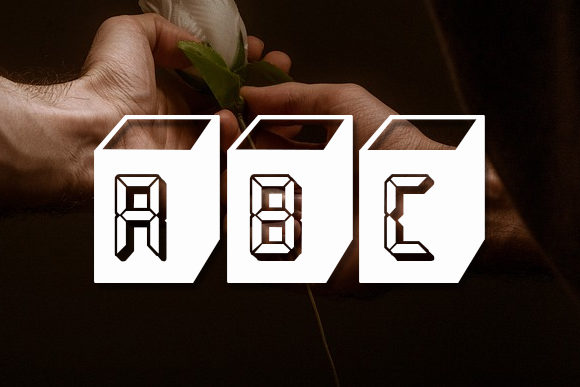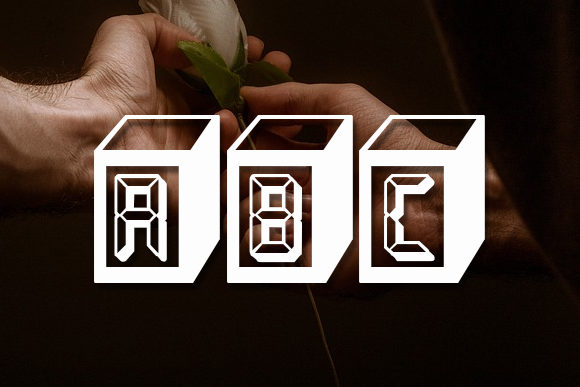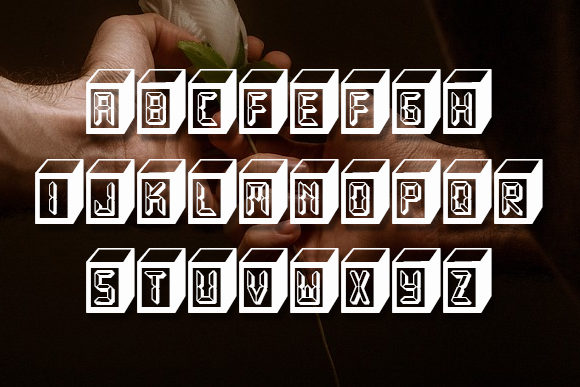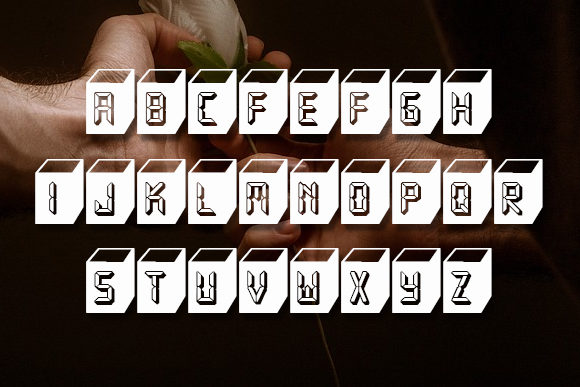
Introduction to Lover Font
Lover is a digital and futuristic decorative font.
It will look stunning on any poster, flyer, or print Use this font for your designs and explore its endless possibilities.
Lover Font offers exceptional quality and versatility, making it a valuable addition to your design toolkit. Whether you’re creating for personal projects or commercial use, Lover Font delivers professional results.